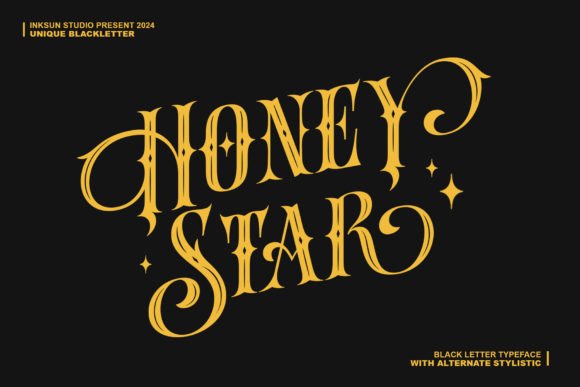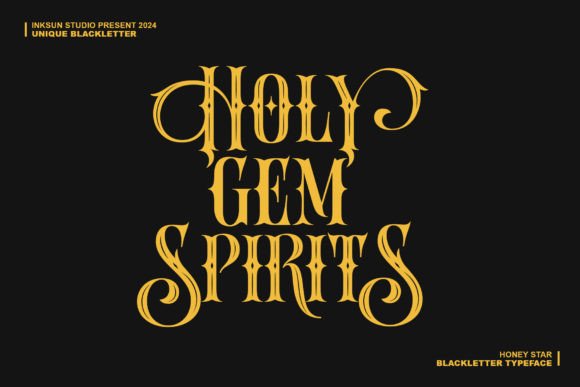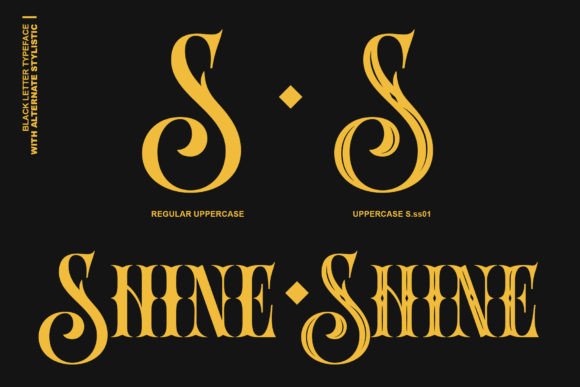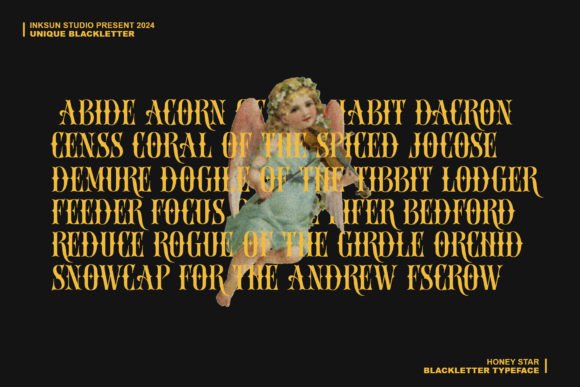
Honey Star Font
About the Honey Star Font
Meet Honey Star Font, a stunning font that brings a touch of elegance and professionalism to any design. Honey Star is a bold and thick lettered blackletter font. Add it confidently to your projects, and you will love the results.
Honey Star’s bold, thick strokes make it ideal for headlines, short impactful statements, and branding applications where a strong, confident presence is desired. It works exceptionally well for posters, logos, and packaging design, particularly for products aiming for a vintage or slightly rebellious aesthetic. However, its weight and highly decorative nature make it unsuitable for body text or UI elements requiring high readability. Long paragraphs set in Honey Star would be visually overwhelming and difficult to read.
Pairing Honey Star effectively requires considering its strong personality. A clean, geometric sans-serif like Futura or a neutral serif such as Garamond would provide a sophisticated counterpoint, balancing the boldness of the blackletter. For a more playful feel, a rounded sans-serif like Bebas Neue could work well, while a delicate script font could add an unexpected layer of elegance.
Honey Star projects a bold, confident, and slightly rebellious personality. Its vintage-inspired blackletter style adds a touch of character and history, ideal for brands seeking to convey strength and authenticity.
Honey Star Font Usage Examples
Honey Star Font Example